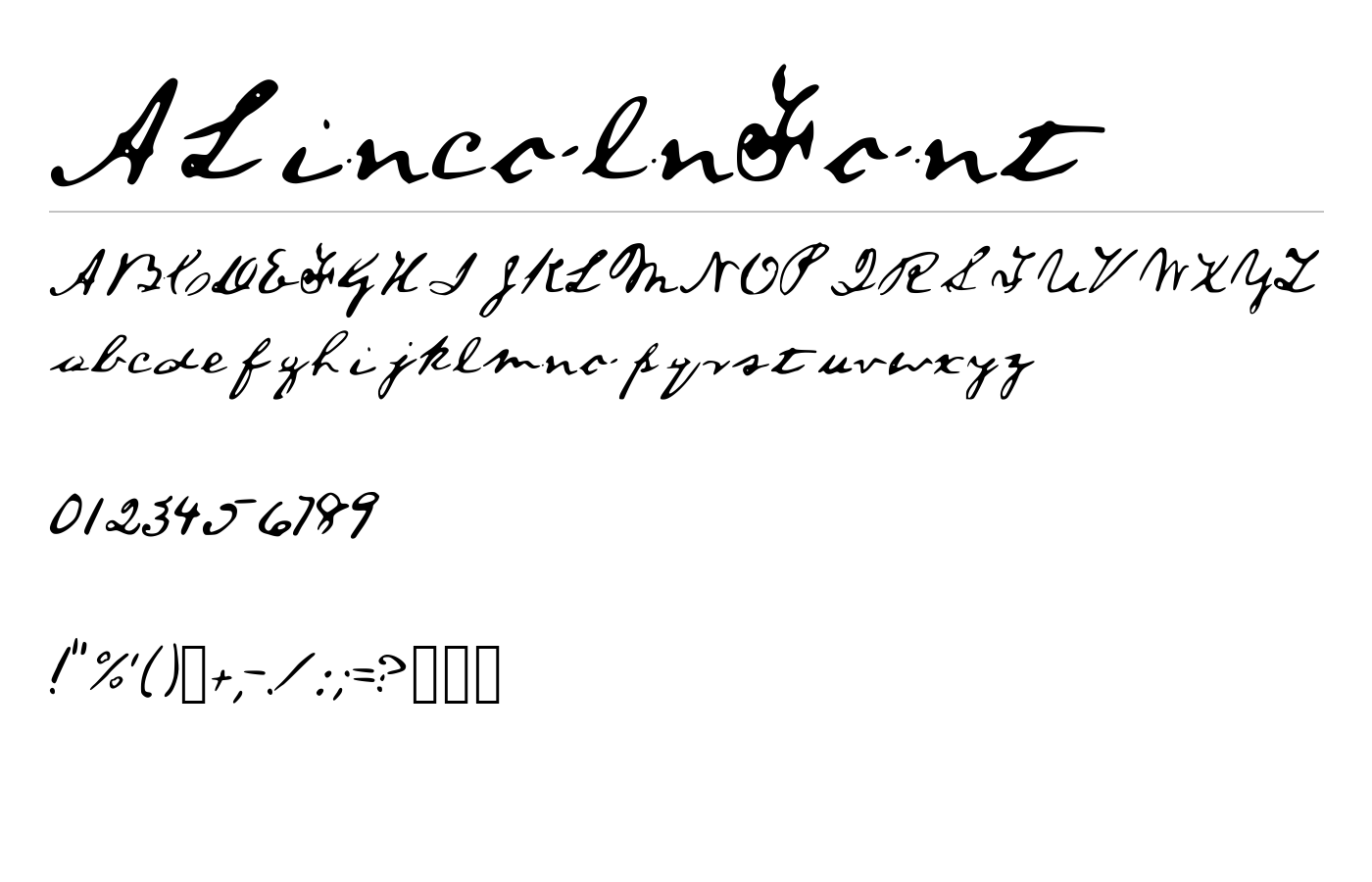
ALincolnFont is a delicate, cursive script font that exudes a vintage, handwritten charm with its flowing, slightly irregular strokes and elegant letterforms. It features a light weight and narrow width, capturing a personal and historical feel ideal for invitations, signature logos, or classic editorial designs. This font works best in creative contexts where a touch of sophistication and authenticity is desired, bringing a warm, nostalgic character to the text.
ALincolnFont